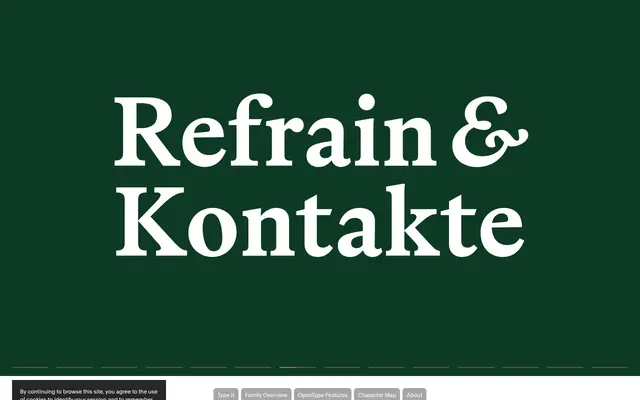
Recital
Optimo · Malte Bentzen
Malte Bentzen's contemporary serif sat between Old-Style and Transitional, in five weights with italics, plus Upright and Italic variable axes.
A contemporary serif by Malte Bentzen that defies neat classification, sat between Old-Style and Transitional. Substantial serifs and robust stems give the typeface a strong, resolute presence, while slender lowercase proportions and more generous uppercase spacing keep the rhythm warm. Five weights with matching italics, plus Upright Variable and Italic Variable axes and a full Variable, suit editorial systems that need to move between print and screen without losing character.
Optimo describes Recital as straddling Old-Style and Transitional, with substantial serifs, robust stems, slender lowercase proportions and more generous spacing in uppercase, in five weights with italics and variable axes.